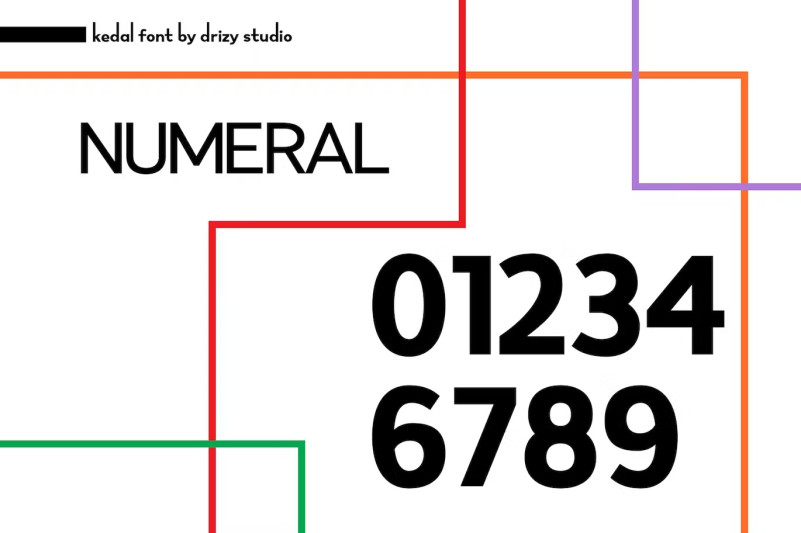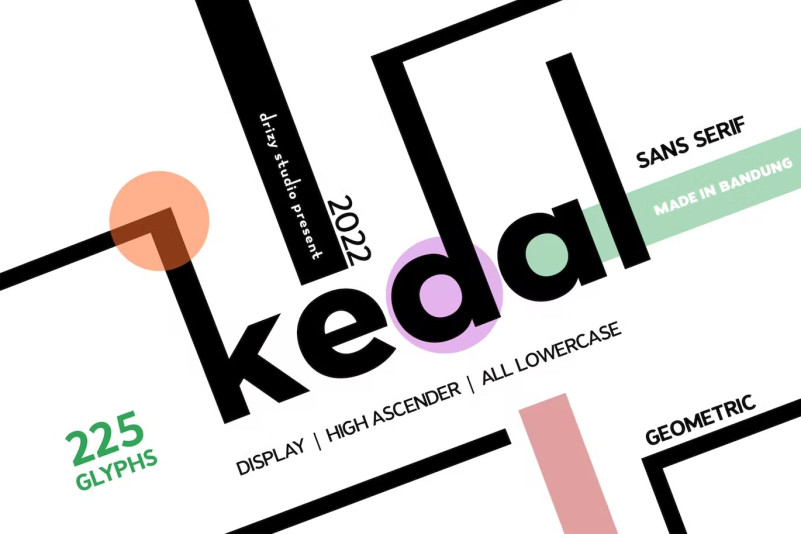
Kedal – Geometric Font
Introducing Kedal! a san serif geometric font from Drizy! Kedal is ready to help you reach your goal of your project.
Kedal Features: Lower Case Numeral & Punctuation Multilinguals & Ligatures